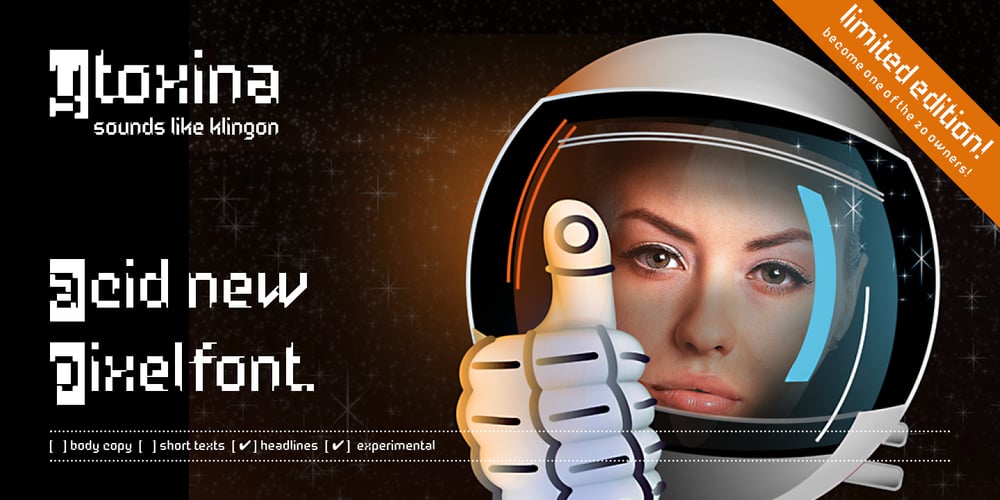
Ytoxina Font Family was designed by Filippo Salmina and published by FSdesign-Salmina. Ytoxina contains 1 styles and family package options. Ytoxina. Acid new Pixelfont. Do you look for an unconventional aggressive headlinefont? Ytoxina might be exactly what you are looking for. Ytoxina is a new member oft the Atoxina family with experimental character. The form of the letters suggests the effect of an aggressive acid having devoured their outlines. Like the other member of the family it is based on a pixelfont. Avoid nicely typography, experiment with Ytoxina!